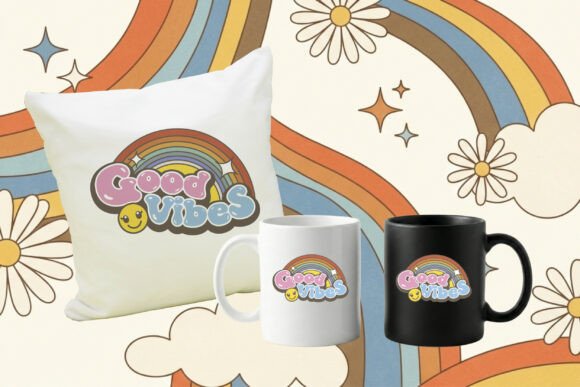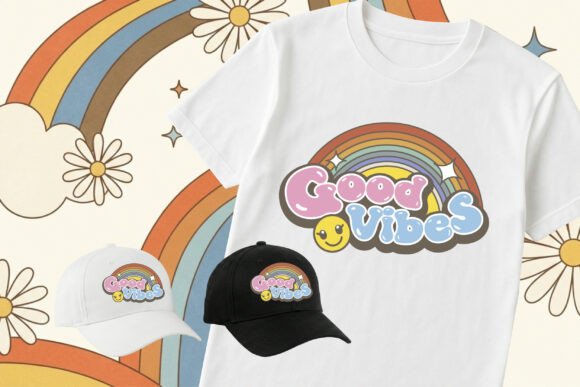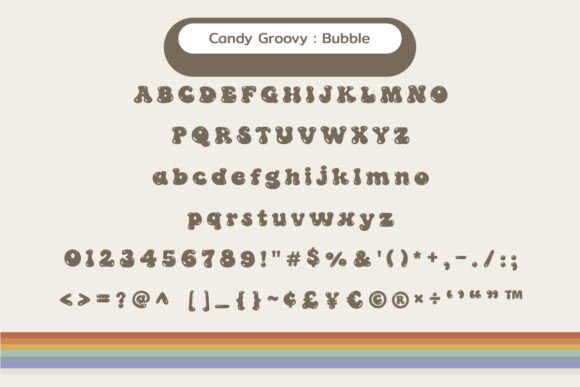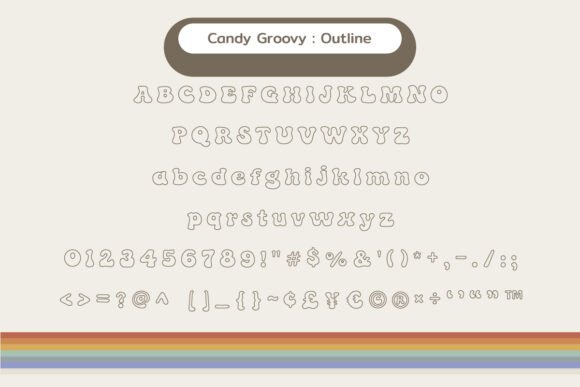
Candy Groovy Font: A Super Cute Retro Bubble Font for Your Creative Projects
Are you ready to travel back in time to the fun and vibrant world of retro designs? Look no further than the Candy Groovy Font, a perfect blend of nostalgia and modern fun. This adorable font is designed to bring a playful and bubbly feel to all your projects, making it ideal for designers and crafters who want to add a touch of whimsy to their work.
What Makes Candy Groovy Font So Special?
The Candy Groovy Font is a super cute retro bubble font that features bold, bubbly curves and soft edges, giving it a unique and eye-catching appearance. With its smooth path, this font is compatible with Cricut, guaranteeing perfect cuts every time. Whether you’re working on a retro-themed t-shirt design, a sticker, or a branding project, Candy Groovy is the perfect choice.
- 3 Different Styles: A regular style, a border style, and a bubble style to mix and match for beautiful designs.
- Bonus Elements: A curated set of retro element shapes, including flowers, rainbows, and glitter, to enhance your typography designs.
Perfect for Your Creative Projects
The Candy Groovy Font is versatile and can be used for a wide range of creative projects, including:
- Retro T-shirt Designs: Especially for “Mom,” “Teacher,” or “Groovy” themes.
- Stickers and Car Decals: Bold and striking shapes make them stand out on any background.
- Branding and Logos: Ideal for retro-style cafes, boutiques, or as social media cover images.
- Products: Use Candy Groovy to add a touch of whimsy to your product designs, such as mugs, tote bags, or phone cases.
Why Choose Candy Groovy Font?
Here are just a few reasons why Candy Groovy Font is a must-have for designers and crafters:
- Unique and Eye-Catching: The Candy Groovy Font features a unique and eye-catching design that’s sure to grab attention.
- Versatile: Use Candy Groovy for a wide range of creative projects, from t-shirt designs to branding and logos.
- Nostalgic Feel: The retro design of Candy Groovy Font is sure to evoke a sense of nostalgia and fun.
- Super cute retro bubble font
- 3 different styles: regular, border, and bubble
- Bonus elements: retro element shapes, flowers, rainbows, and glitter
- Perfect for t-shirt designs, stickers, branding, and logos